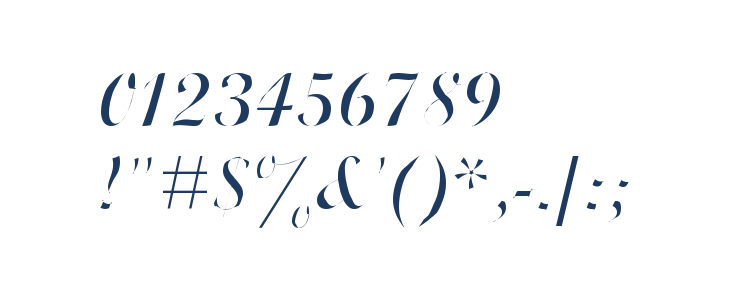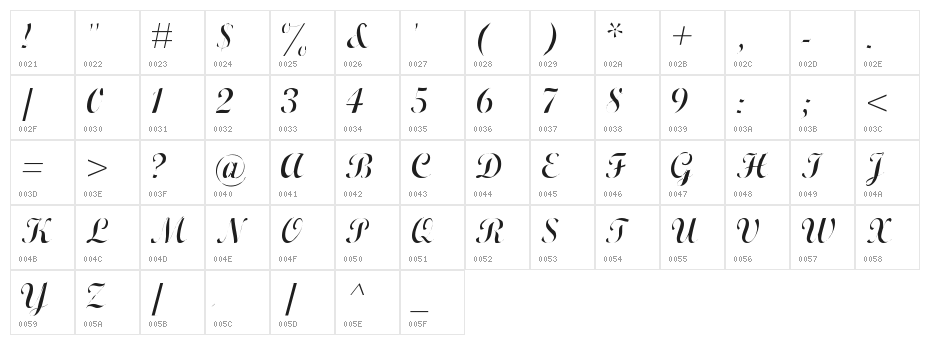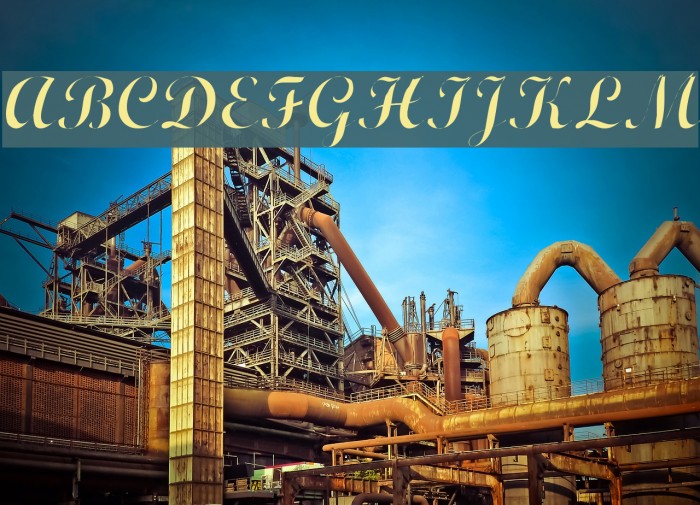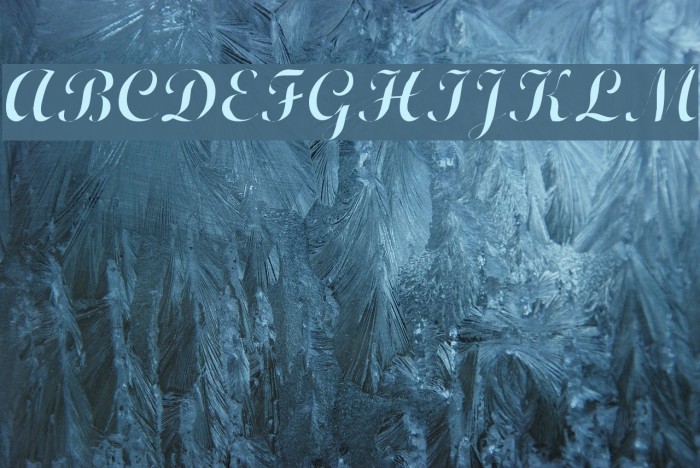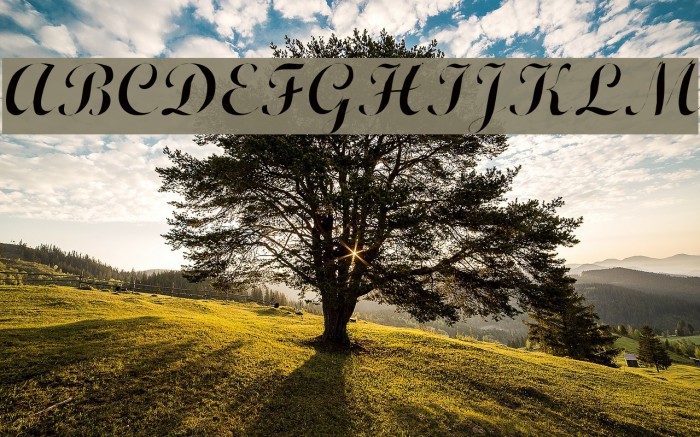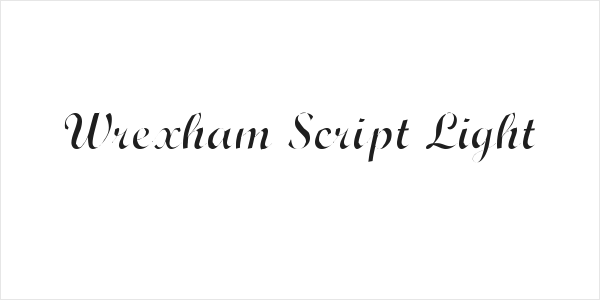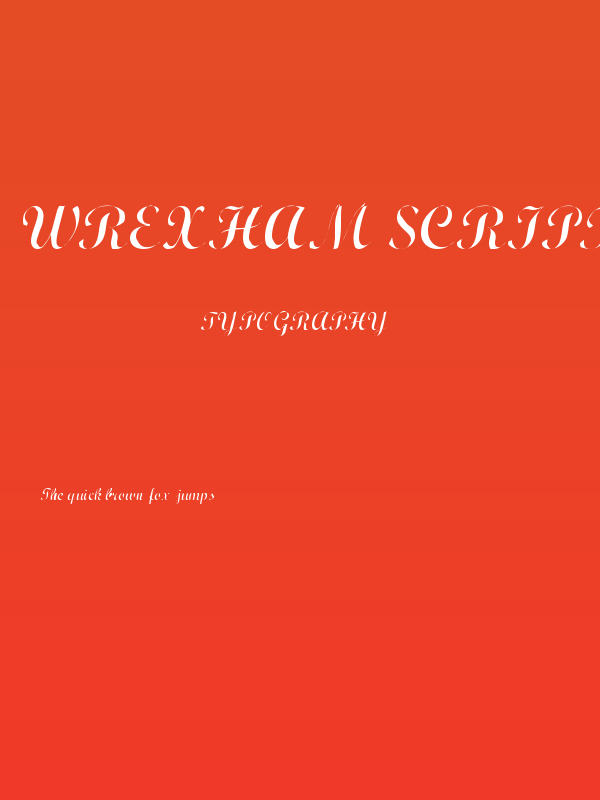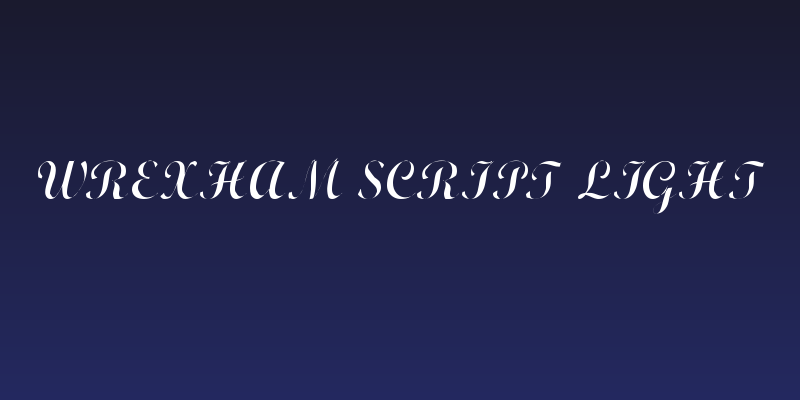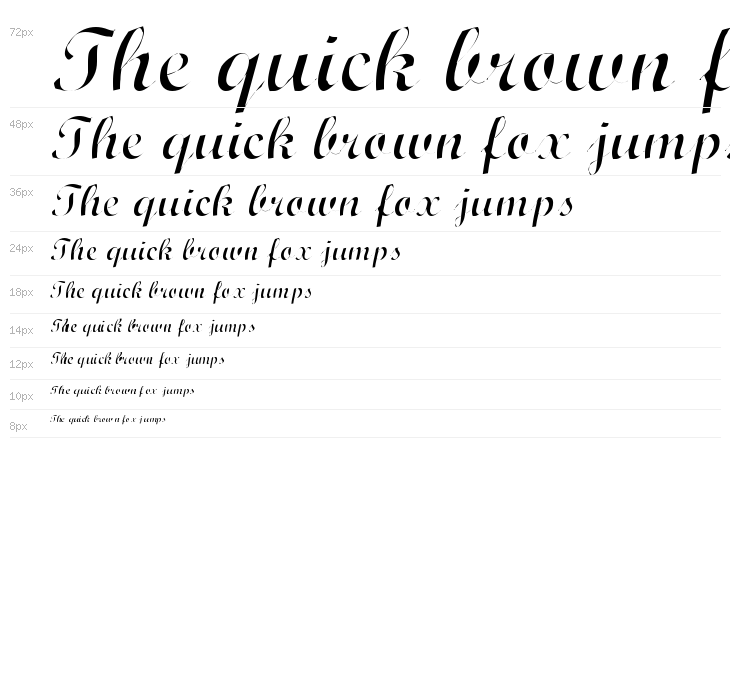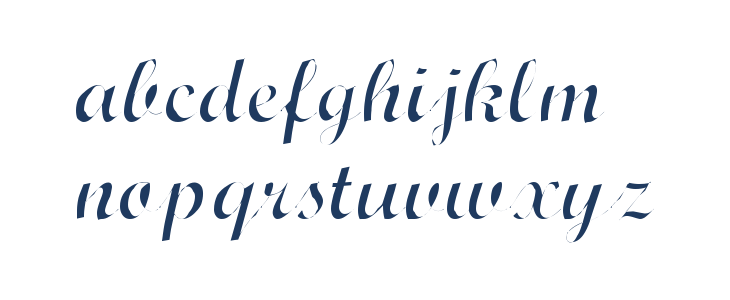
Wrexham Script Light Font
Wrexham Script Light Description
This elegant script font features a flowing, cursive style with a light and airy feel. The characters are connected, creating a seamless and graceful appearance. The strokes are smooth and fluid, with a slight slant that enhances its sophisticated look. The uppercase letters are ornate, with flourishes that add a touch of luxury, while the lowercase letters maintain a consistent rhythm. The numerals and special characters are designed to match the overall aesthetic, making it suitable for formal and decorative purposes.